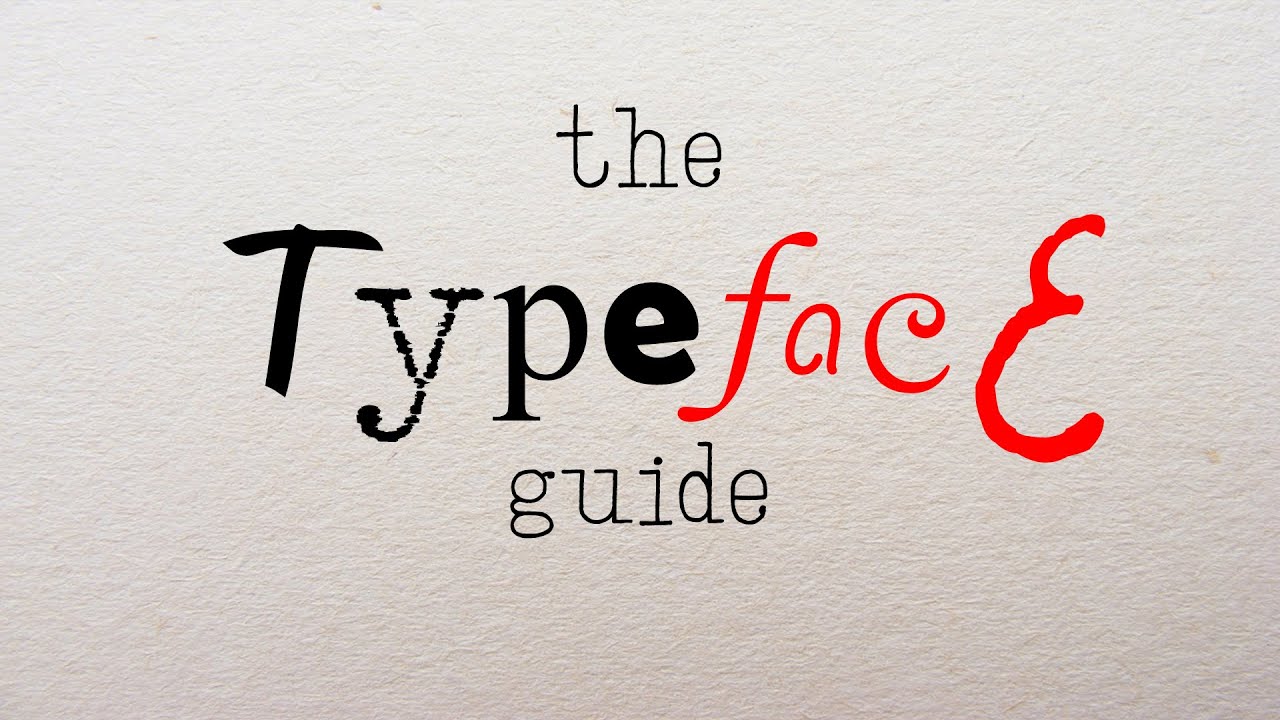
All Numbers With Different Fonts Typewriter
Numbers In Different Fonts These typewriter fonts look like they were written with an old mechanical typewriter. Download 154 typewriter fonts. typewriter fonts are digital typefaces that imitate the look of text produced by classic manual typewriters.
12 Vintage Number Fonts Images Typewriter Font Numbers Enjoy the videos and music you love, upload original content, and share it all with friends, family, and the world on . Archive of freely downloadable fonts. browse by alphabetical listing, by style, by author or by popularity. A set of free typewriter fonts, from clean monospaced options to worn letters with ink blots. includes digitally designed faces and fonts scanned from real typewriters. Perfect for adding a vintage touch to your projects, these fonts are ideal for creative writing, invitations, and retro themed designs. all included fonts are commercially free, allowing you to use them without the need for any licenses or attribution.
12 Vintage Number Fonts Images Typewriter Font Numbers A set of free typewriter fonts, from clean monospaced options to worn letters with ink blots. includes digitally designed faces and fonts scanned from real typewriters. Perfect for adding a vintage touch to your projects, these fonts are ideal for creative writing, invitations, and retro themed designs. all included fonts are commercially free, allowing you to use them without the need for any licenses or attribution. Typewriter fonts that range from authentic to unusual: discover a selection of the most effective typewriter fonts for your designs. Get that classic ππ’πππ πππππ look with our typewriter font generator. π²πππ’ πππ πππππ π’πππ πππ‘π in your own style. Create retro, classic typewriter fonts for creative projects, stories, and branding. download your typewriter text as a png or svg image for posters, crafts, or digital art. The number font generator tool allows you to effortlessly create numbers in a variety of stylish font styles. simply enter your desired number in the input box, and the tool will instantly transform it into different unique number fonts.